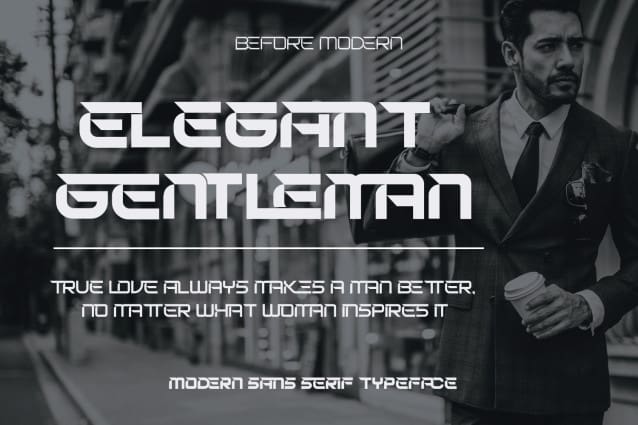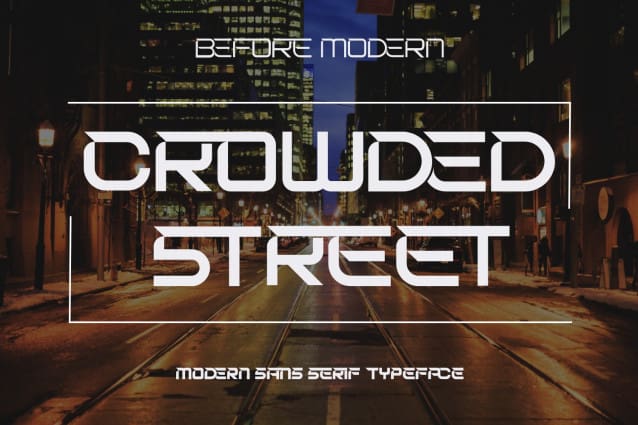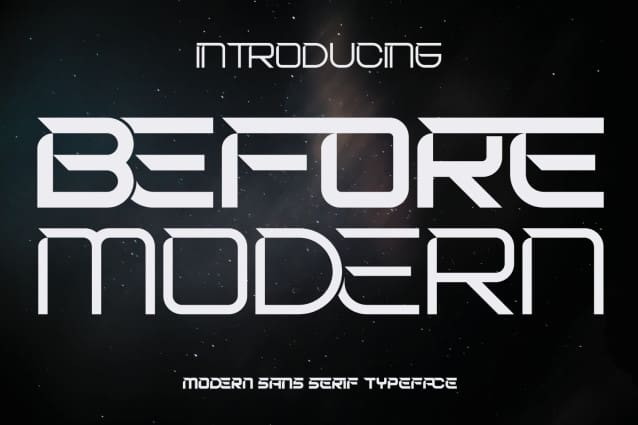
Before Modern Font
Before Modern Font is a futuristic font style with sophisticated, modern and minimalist allcaps characters. Its futuristic aesthetics bring a whole new dimension to your designs, making them stand out. Whether you’re working on a website, poster, logo, or any other project, this font adds that extra touch of innovation and sophistication.
Before Modern was built with OpenType features and includes 100 ligatures, alternate, numbers, punctuation, and it also supports other languages.
AC AD AL AN AR AS AT AU AV BE CA CE CH CO CT DE DI EA EC ED EE EL EM EN EP ER ES ET FE FO FR GE HA HE HI HO IE IC IL IN IO IR IS IT JU KE LA LE LI LL LO LY MA ME MI NC ND NE NG NO NT NS OC OF OM ON OO OP OR OT OU OW PA PR RA RD RE RI RO RS RT SE SH SI SO SS ST TA TE TH TI TO TR TT UM UN UR VE WI WO